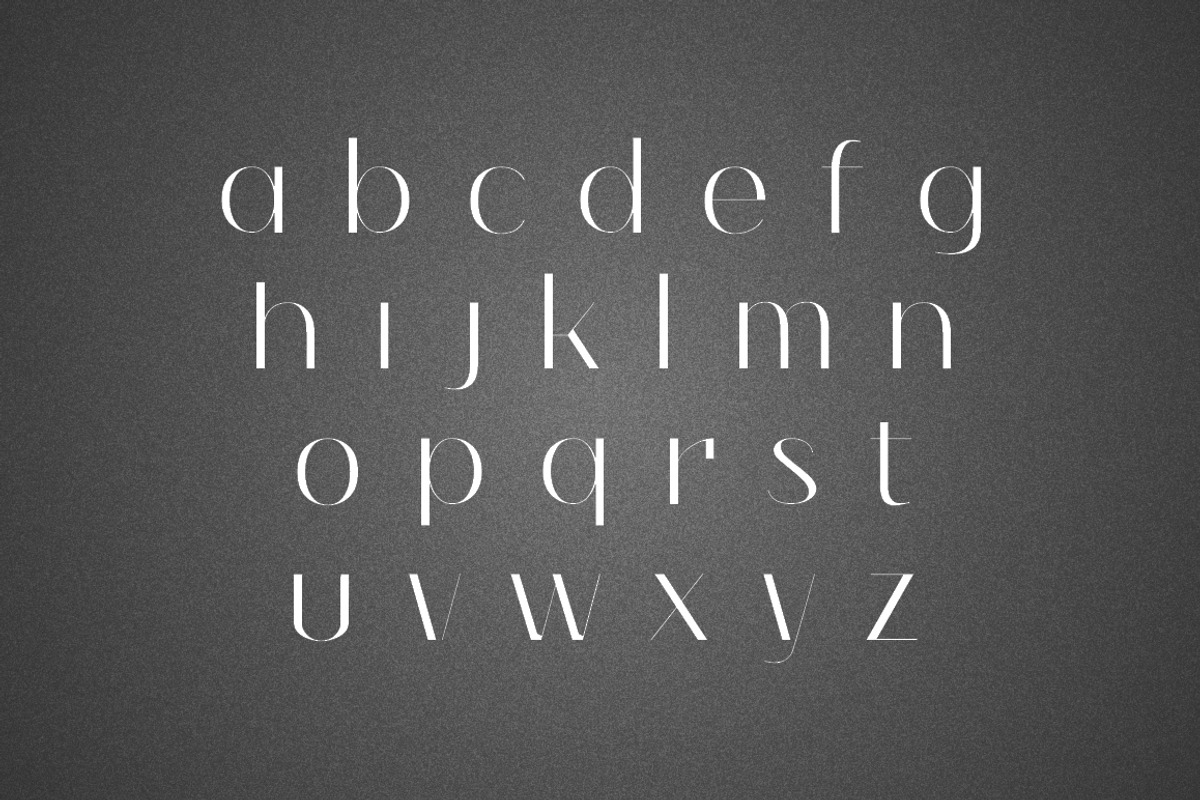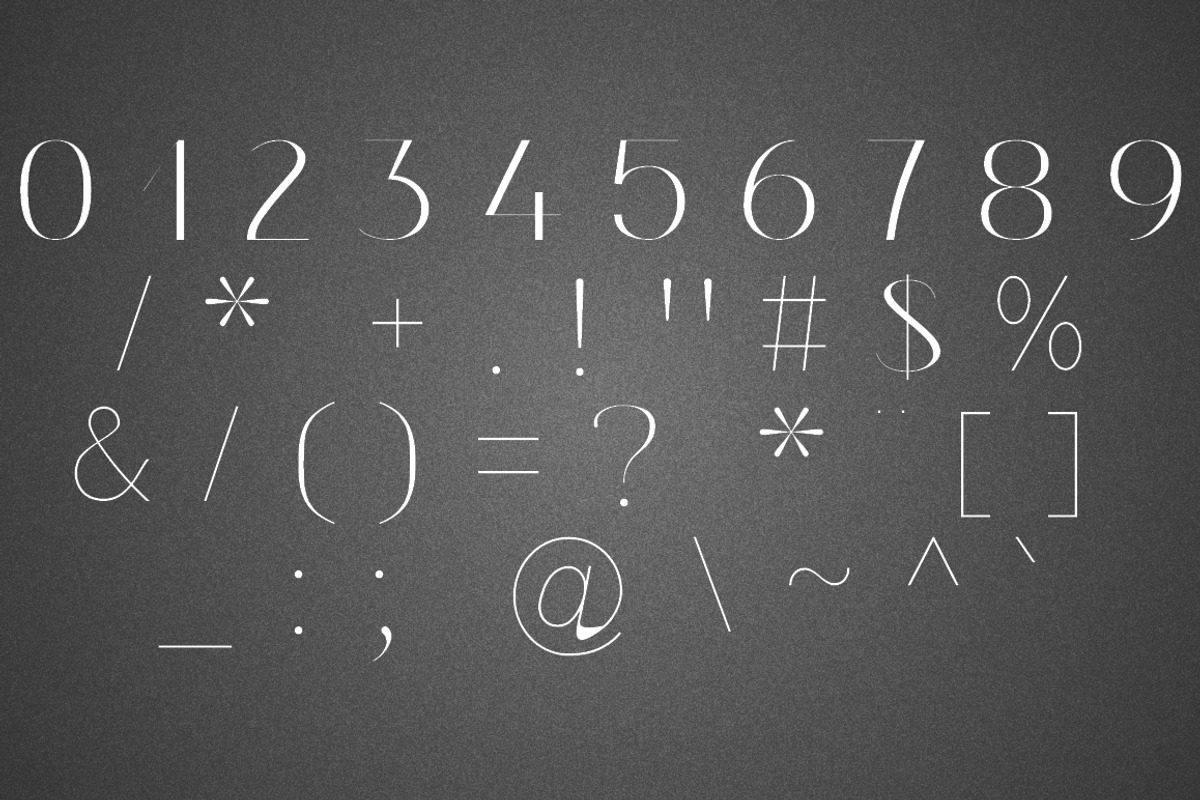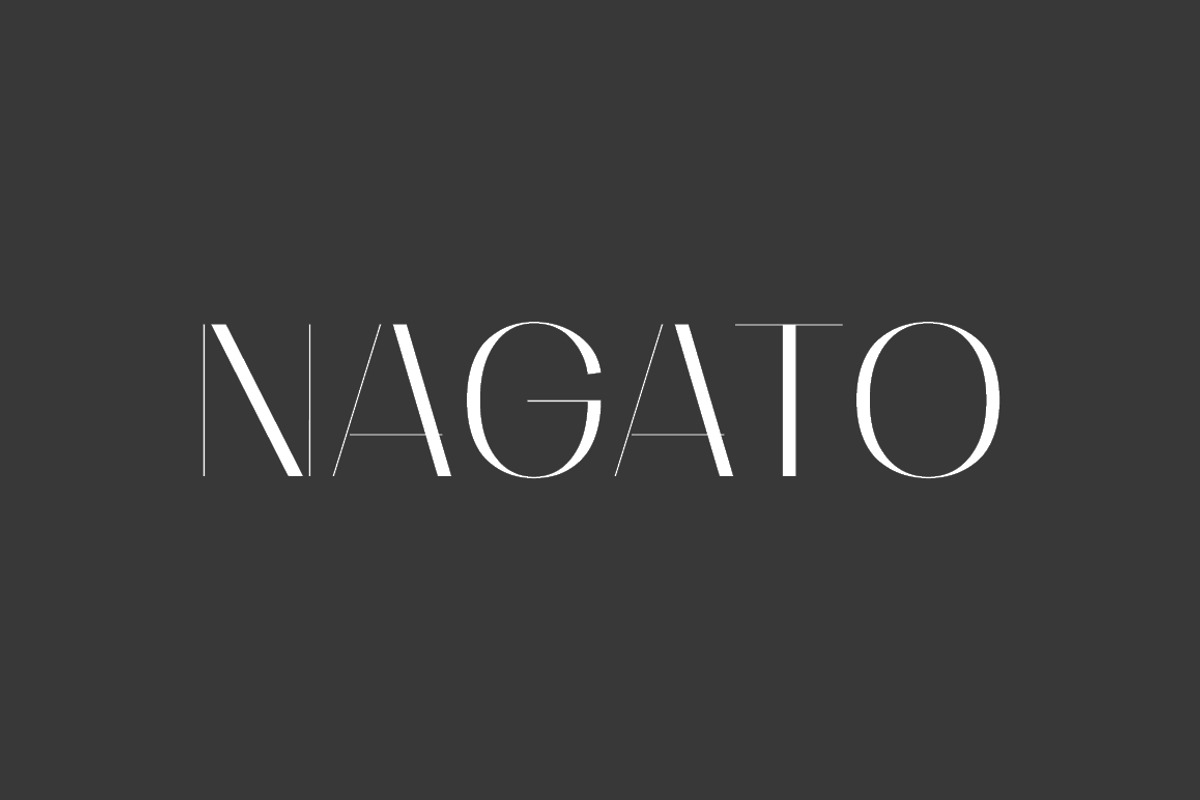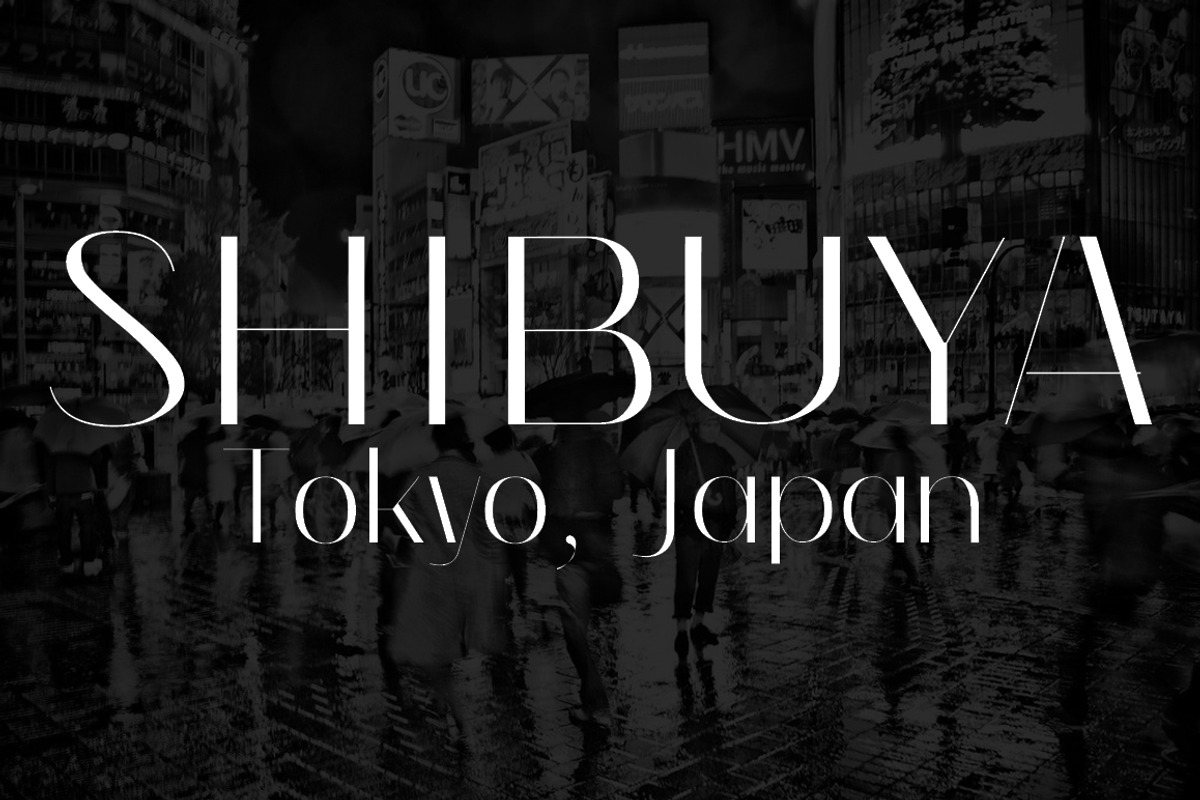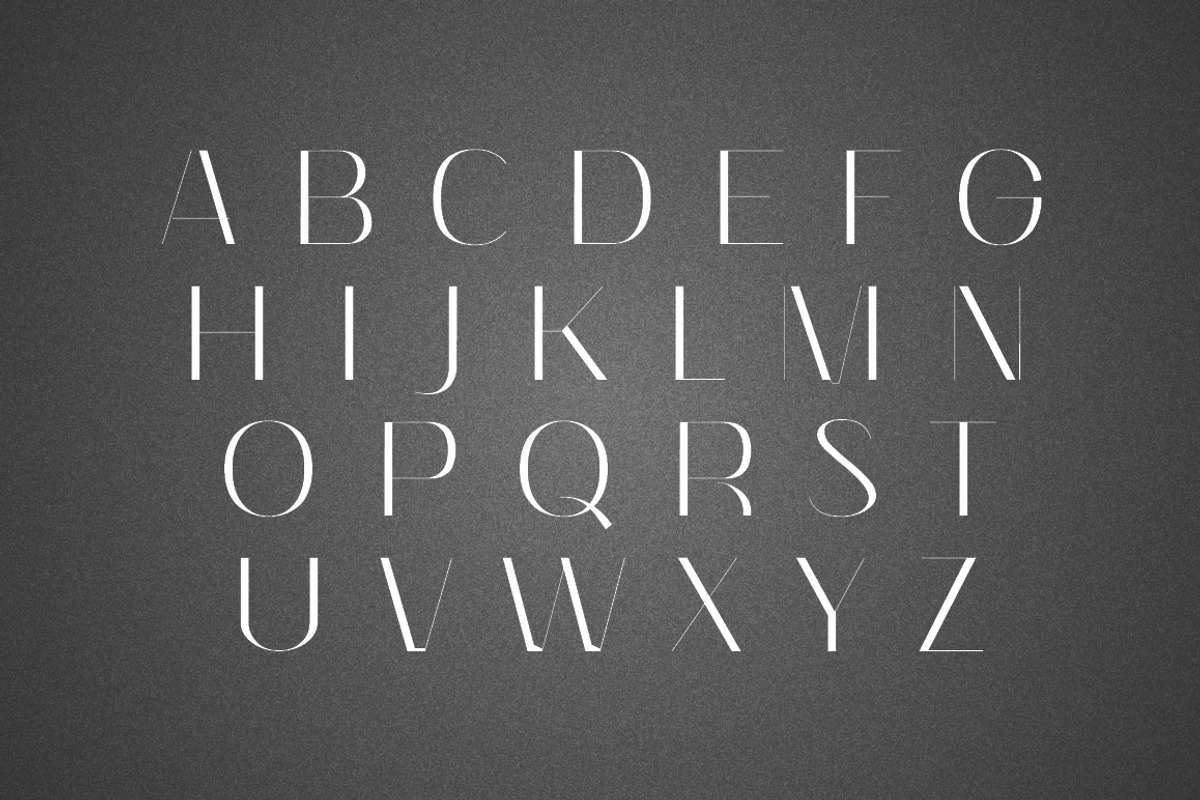
Nagato Font
Nagato Font by YARARÀ STUDIO is a font selected for branding, posters, packaging, typography.
Why Nagato Font is worth a look
Nagato Font by YARARÀ STUDIO fits naturally into Branding, posters, packaging, typography.